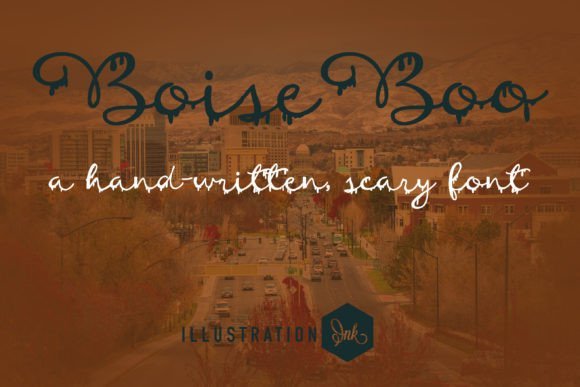
Unleashing the Creepy Charm of Boise Boo Font
Have you ever stared at a handwritten note from a loved one and felt a rush of nostalgia? The imperfections, the quirks, the personal touch – it’s a feeling that’s hard to replicate with digital fonts. But what if you could capture that same essence in your design work? Enter the Boise Boo Font, a hand-crafted font that’s equal parts drippy, oozy, and creepy, with a cursive script that’s sure to set your projects apart.
Designed to evoke the feeling of a handwritten note, the Boise Boo Font is perfect for invitations, greeting cards, and other items where a personal touch is essential. And for designers, its value lies in its uniqueness – a chance to add some real personality to your designs and stand out from the crowd. Whether you’re a seasoned pro or just starting out, the Boise Boo Font is a must-have addition to your toolkit.
Boise Boo Font Key Features
- Font Type: Display Font, with a bold and playful design.
- Character Set: Includes a wide range of characters, including uppercase and lowercase letters, numbers, and punctuation marks.
- Unique Characteristics: Features a unique, hand-drawn design with a mix of bold and delicate lines, making it perfect for adding a touch of personality to designs.
Boise Boo Font Review
Overall, I found the Boise Boo Font to be a charming addition to any design project. ✨ Its unique, whimsical style adds a touch of personality to text-based elements, making it perfect for creative projects or branding that requires a bit of flair.
Here are some of the things that I liked about the Boise Boo Font:
- Its playful, hand-drawn feel adds a human touch to digital designs ✨
- The font is highly customizable, making it easy to adjust to suit different design styles ✨
- It’s a great choice for creating eye-catching headlines or titles ✨
However, I did encounter some limitations when using the Boise Boo Font:
- It can be difficult to read in smaller font sizes ⚠️
- The font may not be suitable for long blocks of text, as it can become visually overwhelming ⚠️
Overall, I would recommend the Boise Boo Font to designers who are looking to add a touch of whimsy to their projects. While it may have some limitations, its unique style and high level of customization make it a great choice for creative projects or branding.
Getting the Most Out of Boise Boo Font
For optimal use, pair Boise Boo Font with bold, contrasting colors to create a visually appealing design. Experiment with different font sizes and styles to add depth and interest to your design. Use Boise Boo Font for headings and titles to draw attention and create a cohesive look.
Boise Boo Font is ideal for use in: invitations, greeting cards, party decorations, and branding materials. Its playful, handwritten style makes it perfect for creating a whimsical and festive atmosphere.